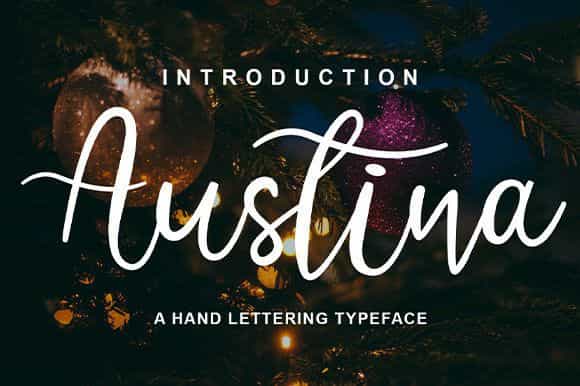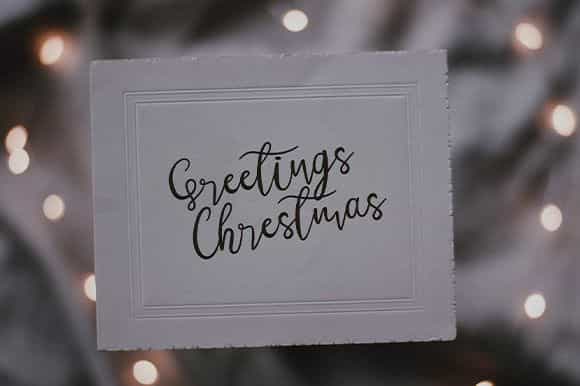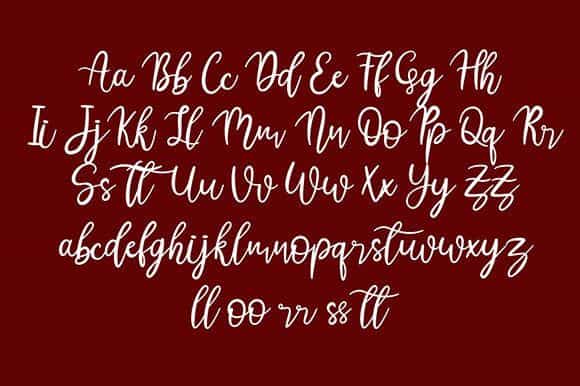
Introducing Austina Font. It is created and posted by Nico Muslib. It is a lovely script with an extremely slippery texture. Use it to transform any design project to a true masterpiece! This font is perfect to make your design more catchy and stylish!